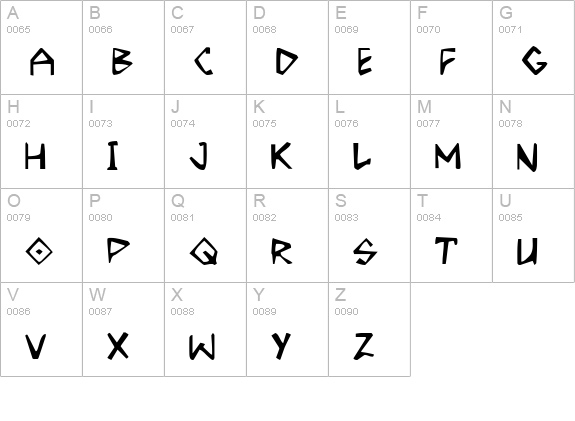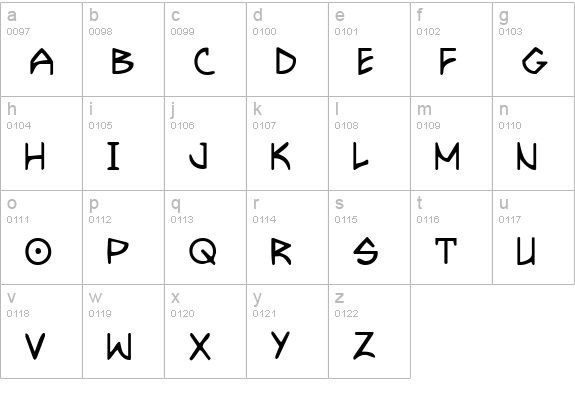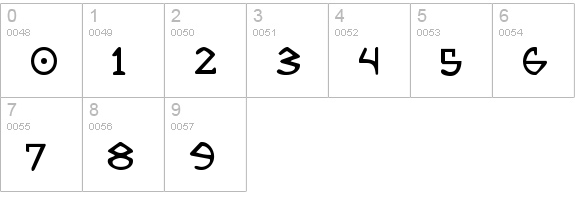
Grrrrrr Regular Font Details
Grrrrrr Regular is the standard, neutral variant in the Grrrrrr typeface family \xE2\x80\x94 well suited to general body text, paragraphs, and standard typographic work.
Grrrrrr Regular font is a bold and expressive typeface that exudes power and strength. Its aggressive design features sharp edges and thick strokes, making it perfect for creating impactful headlines and attention-grabbing designs. This font is versatile and can be used in a variety of projects, from posters to logos to branding materials. Best of all, Grrrrrr Regular font is available for free download at FontsMarket.com. You can easily access this striking typeface and elevate your designs without any cost. Don't miss out on the opportunity to add this dynamic font to your collection and make a bold statement with your creative projects. Download Grrrrrr Regular font today and unleash its fierce energy in your designs.